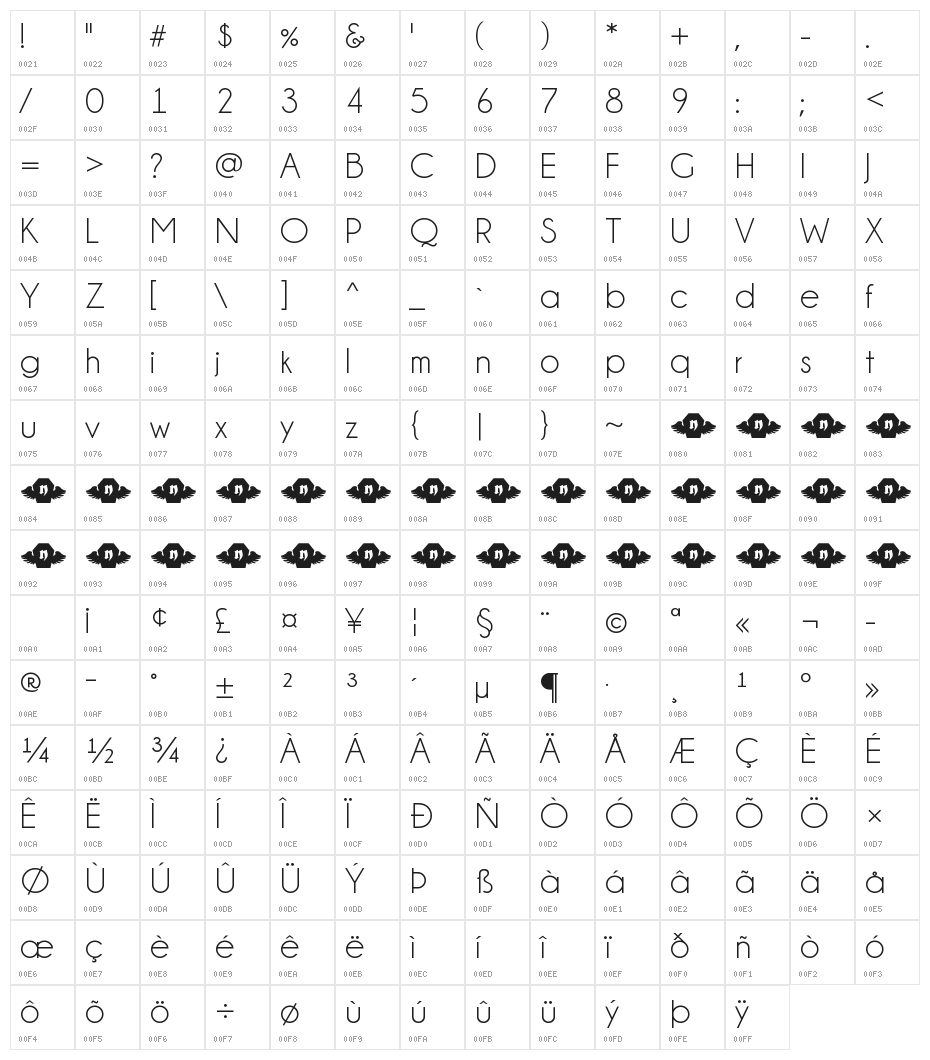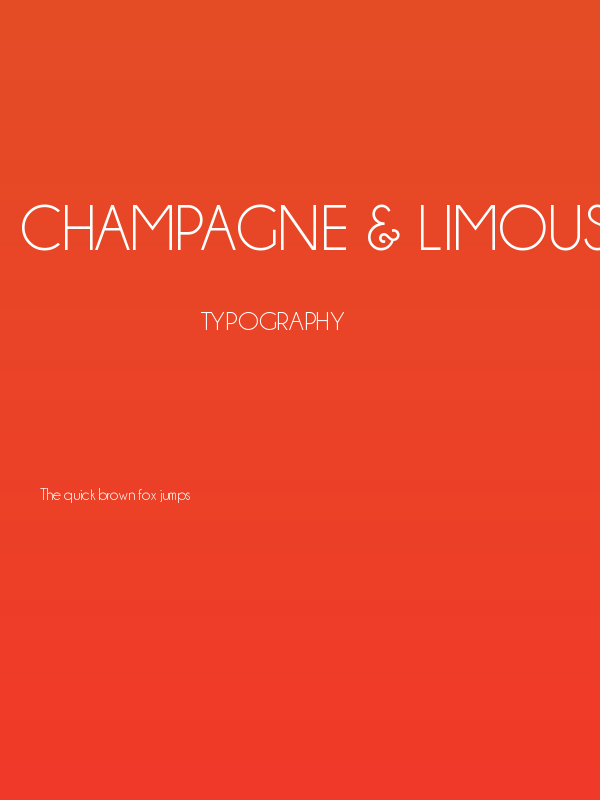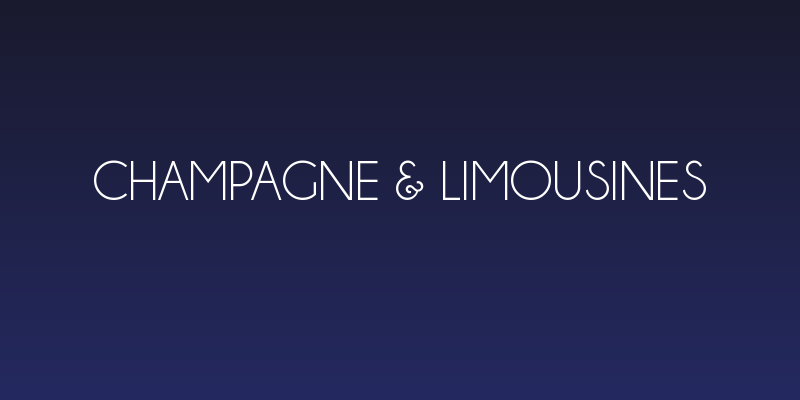
Champagne & Limousines Font
Champagne & Limousines Description
This font features a clean and elegant sans-serif style with a modern touch. The characters are well-proportioned, with a smooth and consistent stroke width that gives it a refined appearance. The uppercase letters are tall and slightly narrow, while the lowercase letters maintain a balanced and harmonious look. The numerals are clear and easy to read, making them suitable for various applications. Special characters are included, adding versatility to the font's use. The overall design is sleek and sophisticated, making it ideal for projects that require a contemporary and stylish aesthetic.